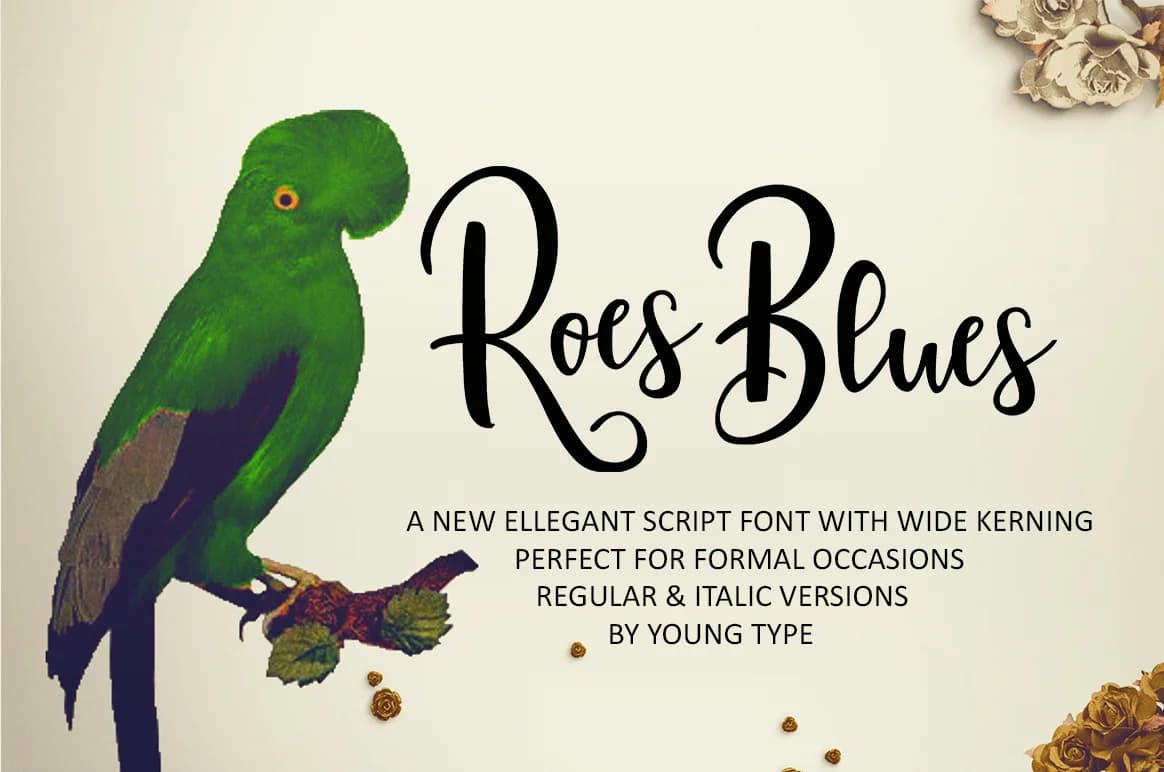
Roes Blues by Youngtype is a contemporary script typeface that combines clean, crisp letterforms with fluid movement, bringing modern sensibility to traditional handwritten aesthetics. This distinctive typeface balances the organic warmth of brush-style lettering with the refinement of structured design, making it versatile enough for both professional branding and personal creative projects.
The font's true strength lies in its adaptability across various design applications. From personalized greeting card suites and custom wedding stationery to boutique product labels and social media graphics, Roes Blues delivers reliable consistency without losing its unique character and warmth. Designers working on brand identity systems will appreciate how the typeface maintains reliable legibility while retaining its distinctive visual personality. The extensive alternate character set allows for thoughtful variation within headlines and display text, helping creators develop layered visual hierarchies and personalized typography choices that feel intentional.
- Elegant, Flowing, Roes Blues
Roes Blues Font is a script font that shines as a display or heading face. Pair it with a clean sans-serif or serif font for body text β the contrast creates a clear hierarchy while the two styles stay balanced and easy to read.